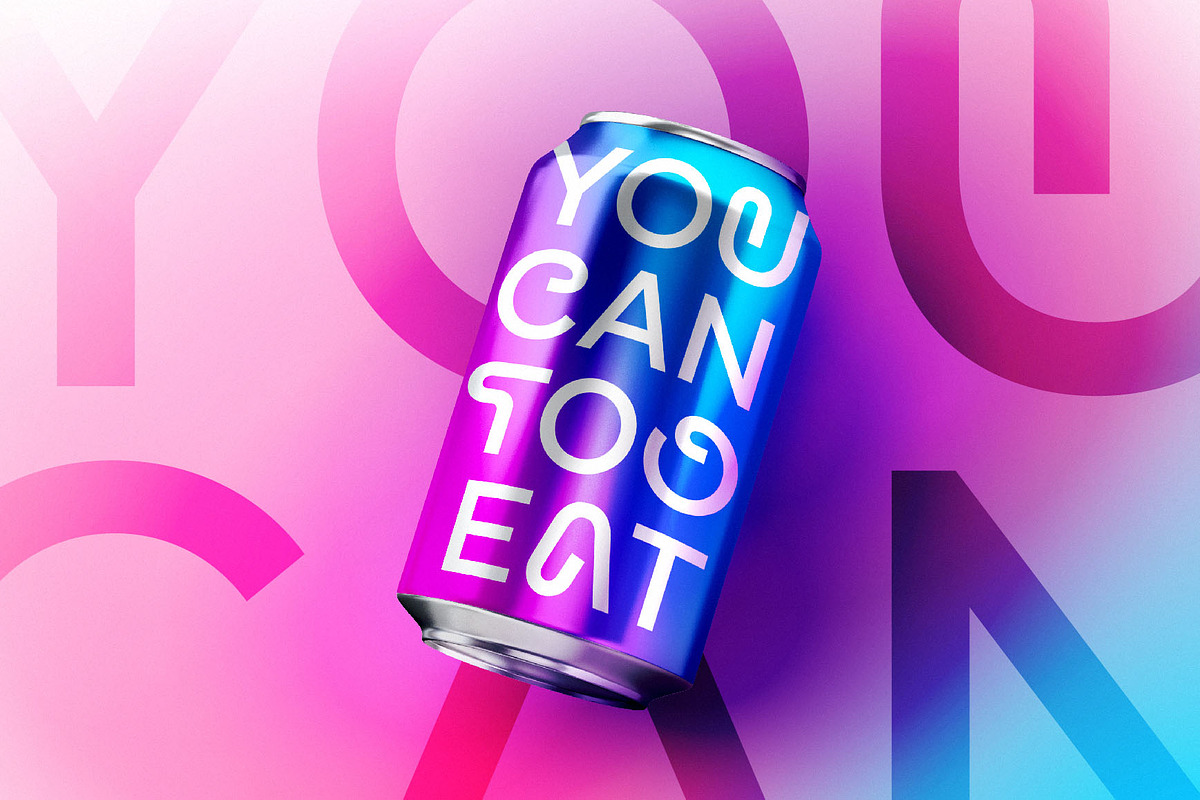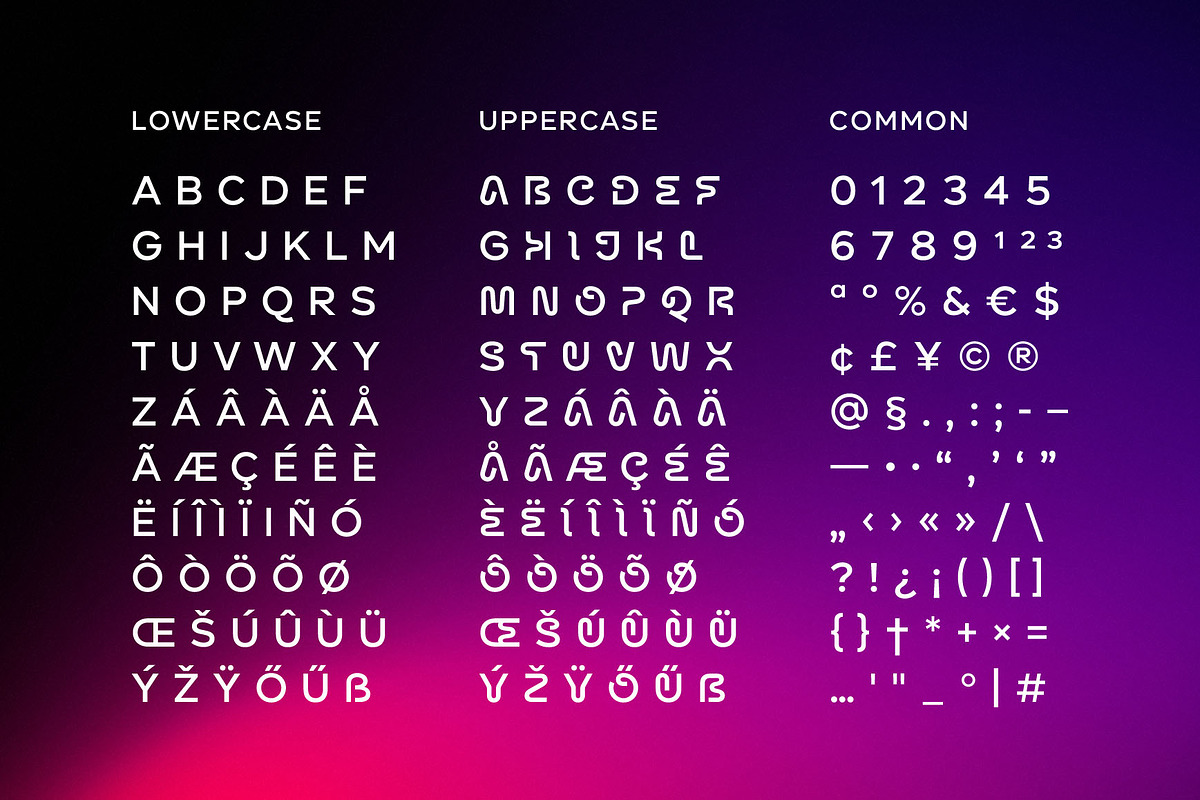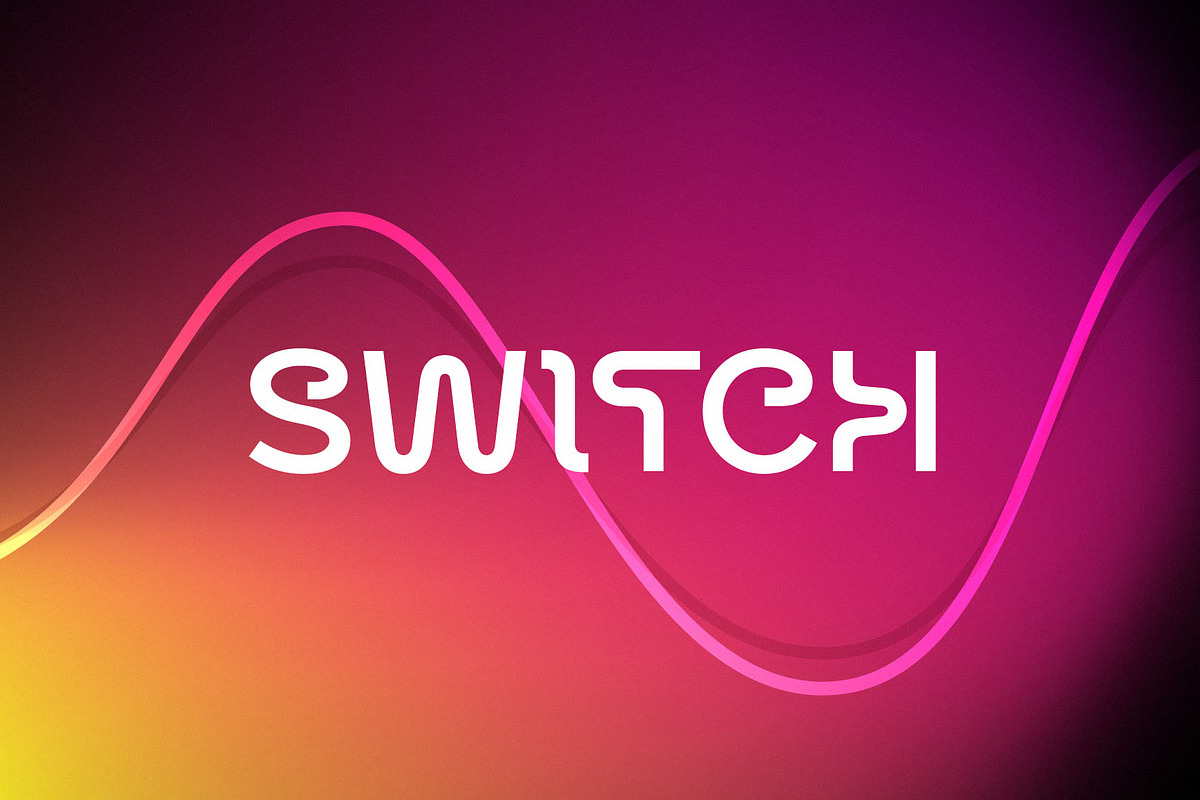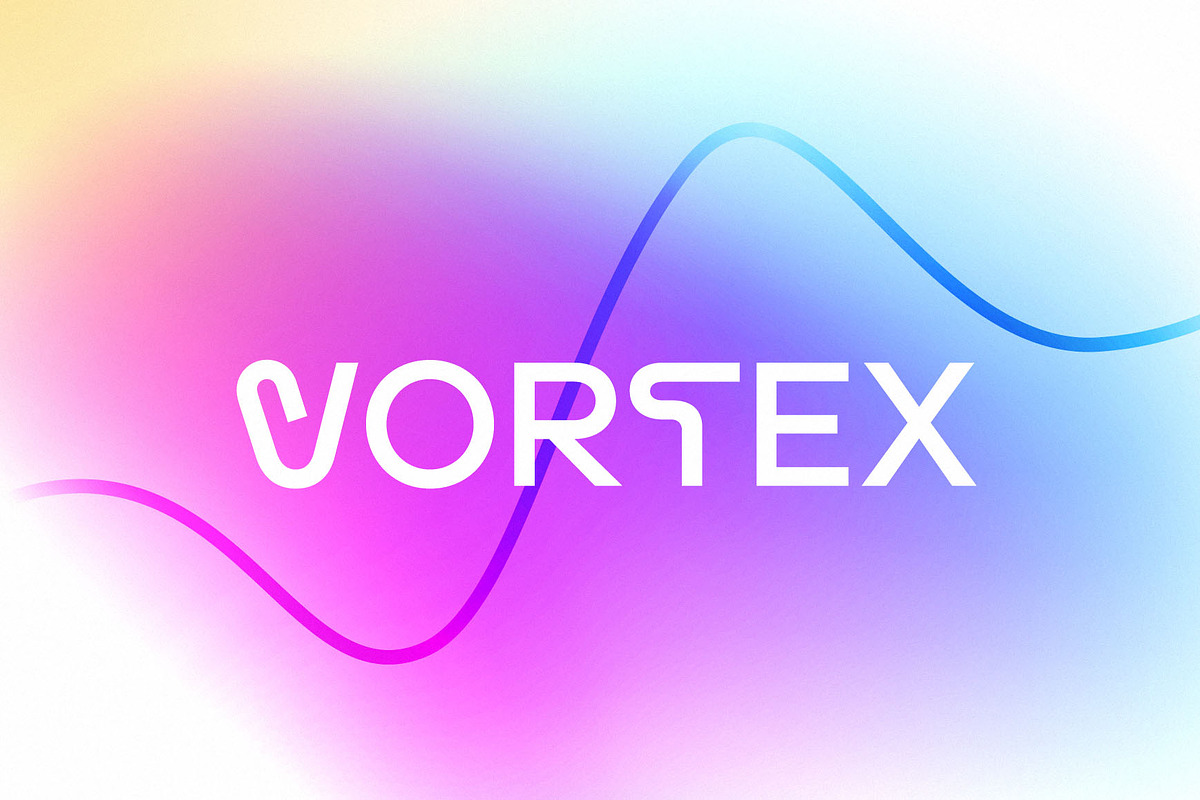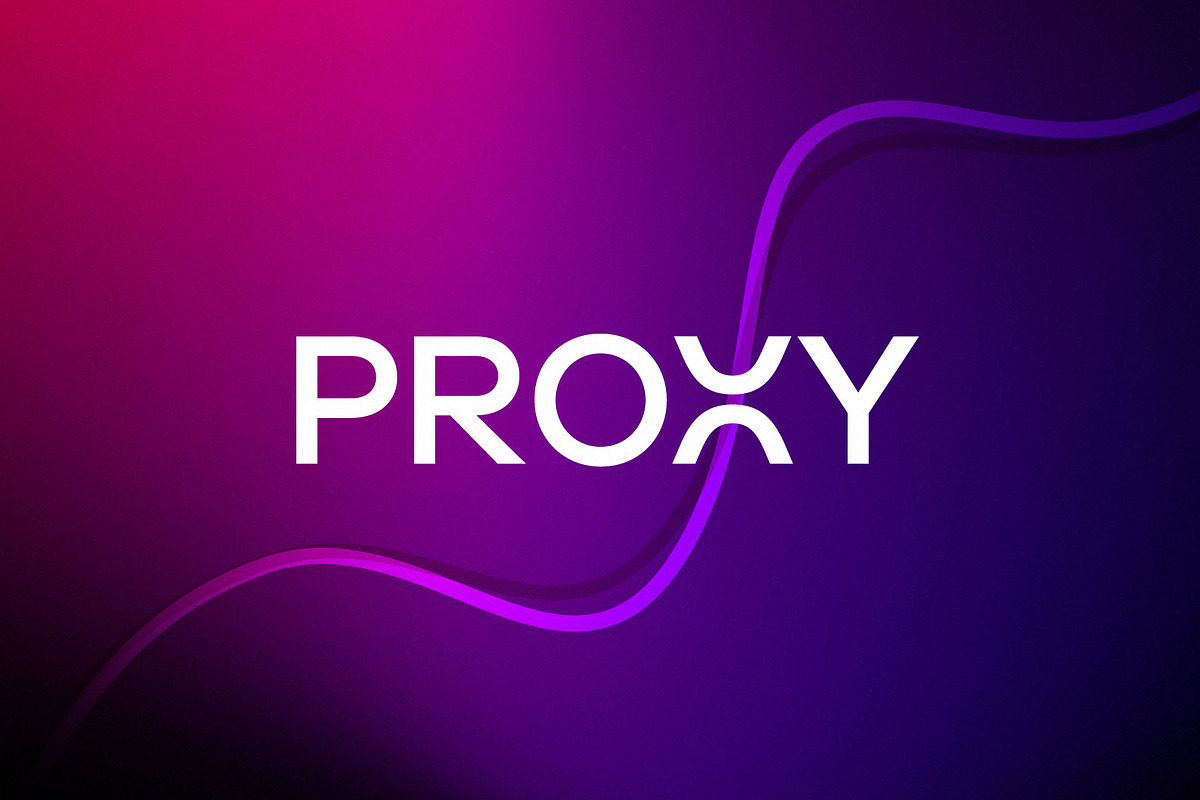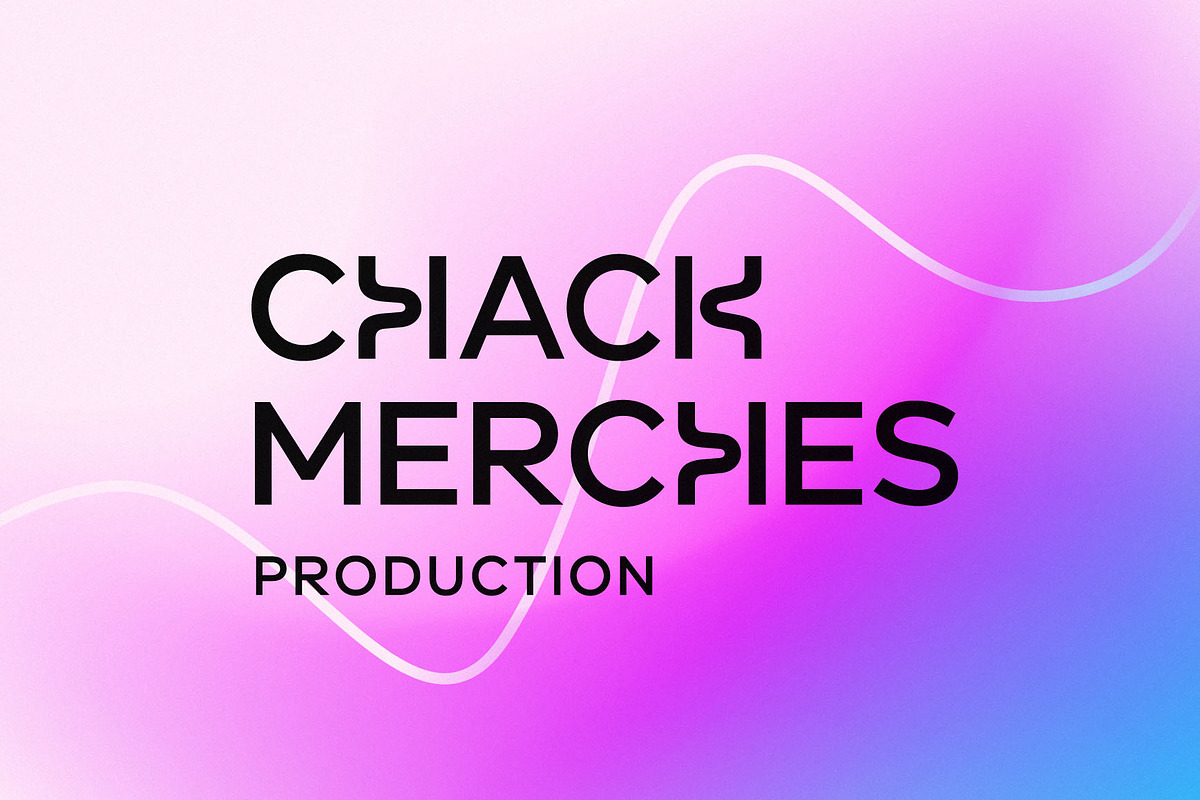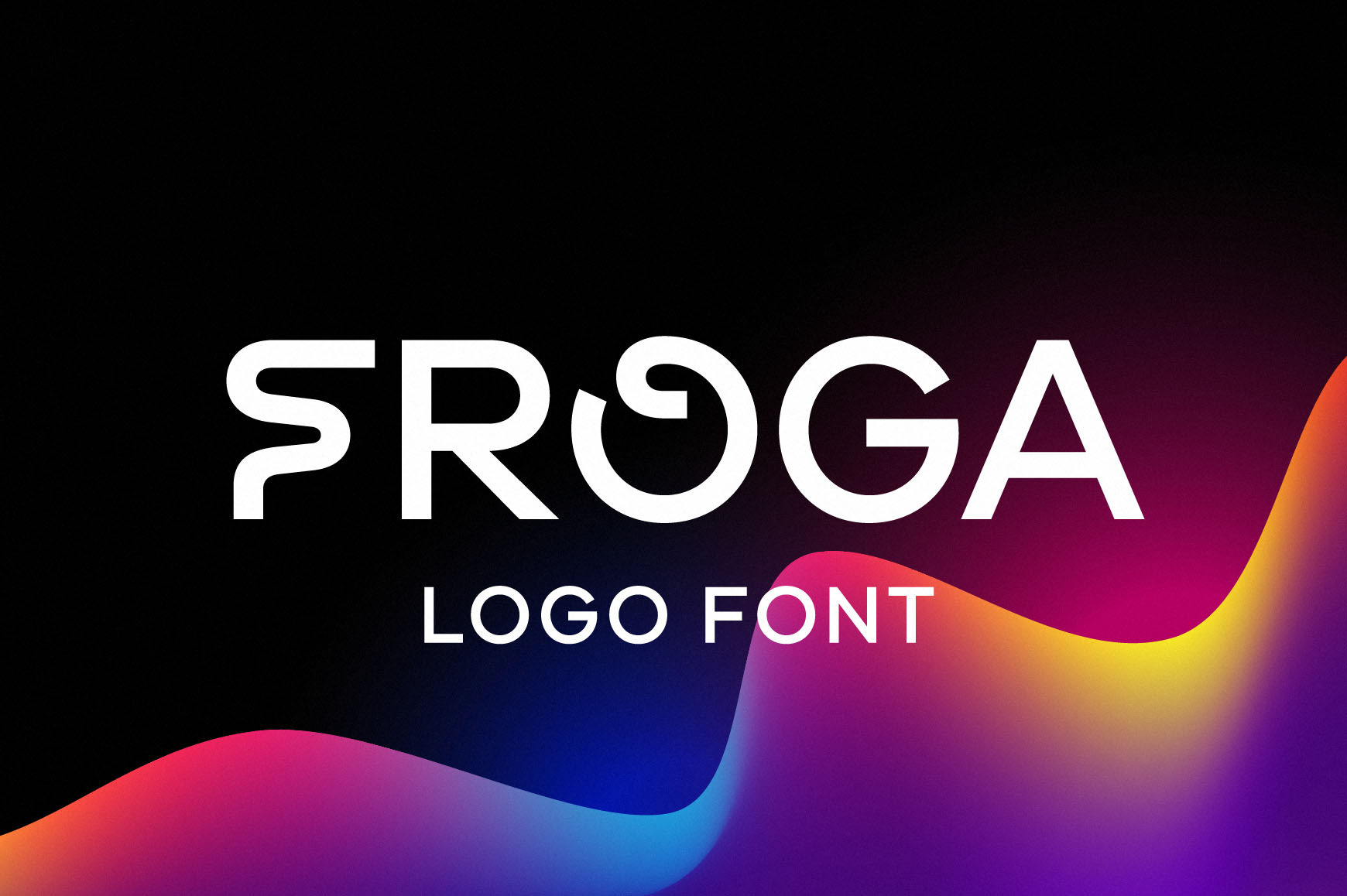
Froga - Logo Font
Froga font is designed to create minimalistic logos, wordmarks, titles, taglines. The place of lowercase letters is taken by ordinary sans serif letters, in place of capital letters there are unusual letters. You can use unusual characters to emphasize separate letters in your text.